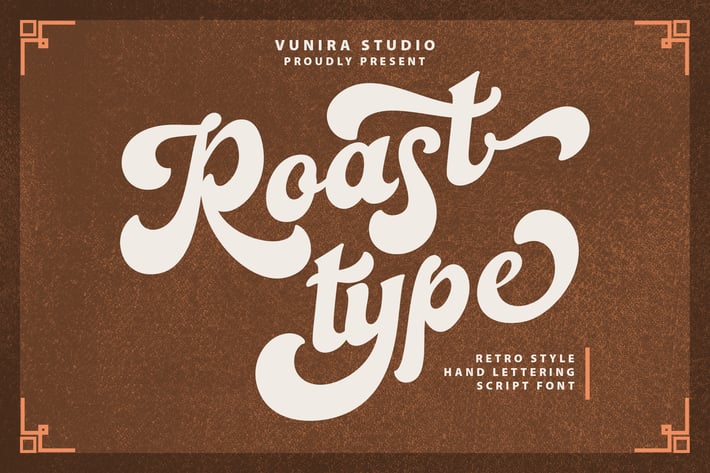
Roastypes | Handlettering Script Font with a calligraphy style, So beautiful on invitation like greeting cards, branding materials, business cards, quotes, posters, and more!